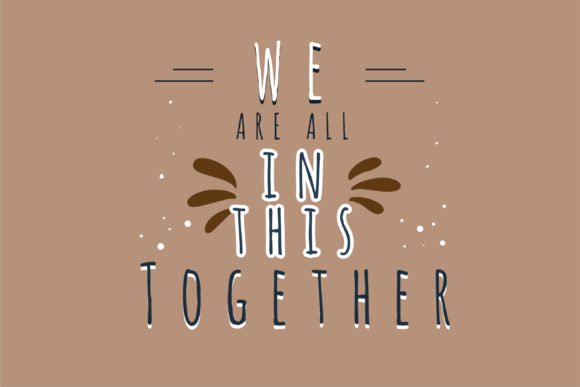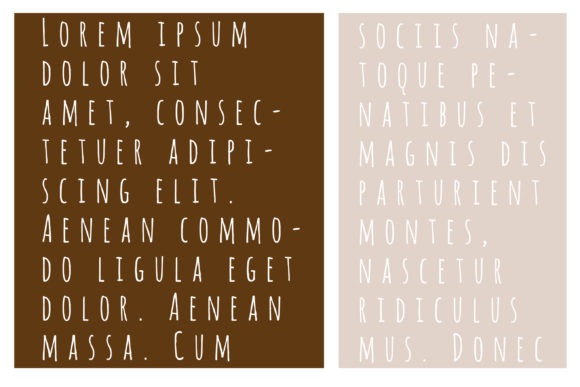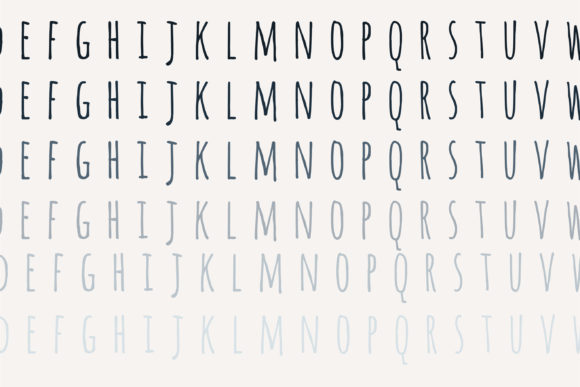
This simple hand-crafted print has extra-wide spacing throughout. It includes 3d and snowy letters so you can create the most spectacular designs!
ZP Altisimo Font